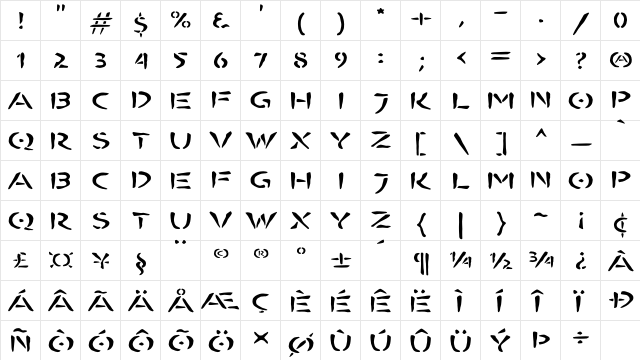
BOMBORA Regular Font Preview
BOMBORA Regular
BOMBORA Regular Font Details
| Foundry | Jan Paul, ƎIGMA FONTS |
| Designer | Jan Paul |
Design Context for BOMBORA Typeface
BOMBORA is a composed and adaptable typeface that performs quietly and consistently across a wide range of design contexts.